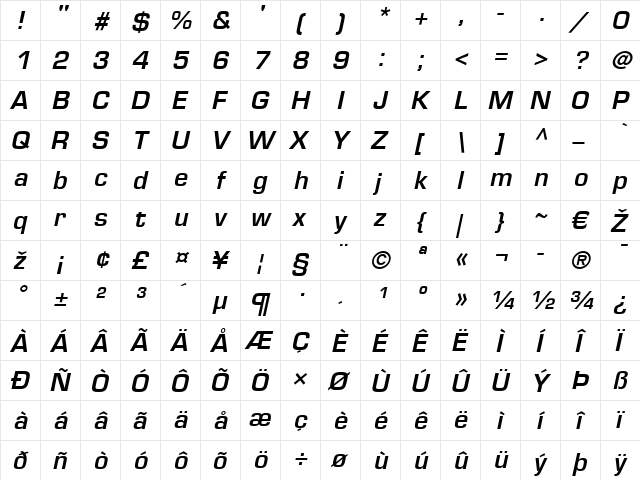
Eurostile LT Bold Italic
Design Context for Eurostile LT Typeface
Eurostile LT takes a measured approach to typography — its balanced proportions and neutral character make it a reliable workhorse for both digital and print work. The slanted form adds forward momentum and visual energy. Its bold stroke weight gives it real presence on the page.
Pro Tip: Use Eurostile LT for emphasis, pull quotes, and subheadings where its slanted energy can add rhythm to the layout.